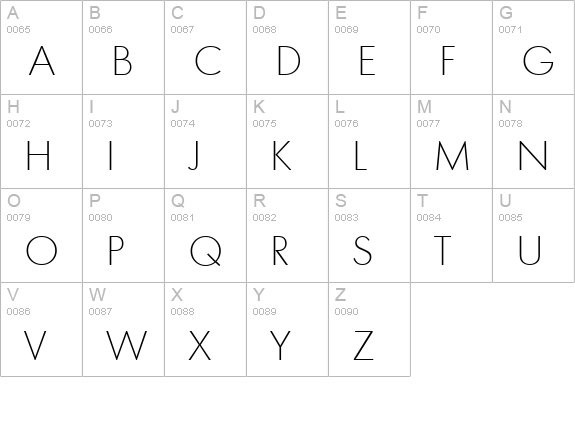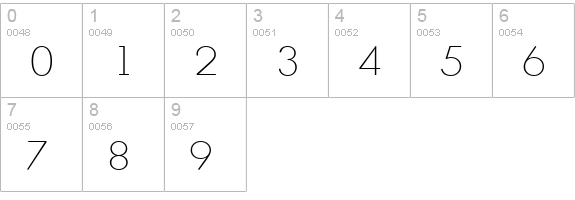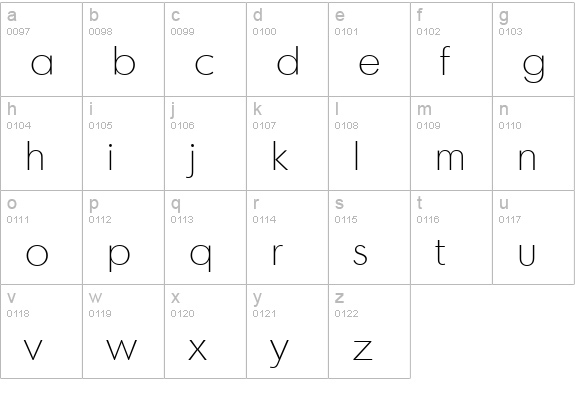
MontrealSerial-Xlight-Regular is the standard, neutral variant in the MontrealSerial typeface family \xE2\x80\x94 well suited to general body text, paragraphs, and standard typographic work.
MontrealSerial-Xlight-Regular is a versatile and modern font that exudes elegance and sophistication. With its clean lines and subtle curves, this typeface is perfect for a wide range of design projects, from branding to editorial design. The light weight of this font adds a touch of delicacy and refinement to any text. One of the best things about MontrealSerial-Xlight-Regular is that it is completely free to download. You can easily access this beautiful font at FontsMarket.com, where you can enhance your creative projects without any cost. Whether you're working on a website, a poster, a logo, or any other design, MontrealSerial-Xlight-Regular is sure to make your text stand out with its timeless appeal. Don't miss out on the opportunity to elevate your designs with MontrealSerial-Xlight-Regular. Download this exquisite font today and add a touch of sophistication to your projects.